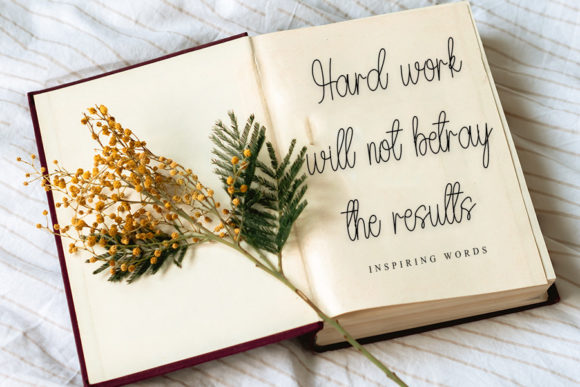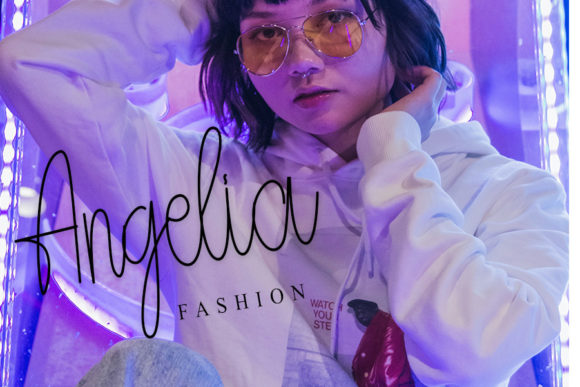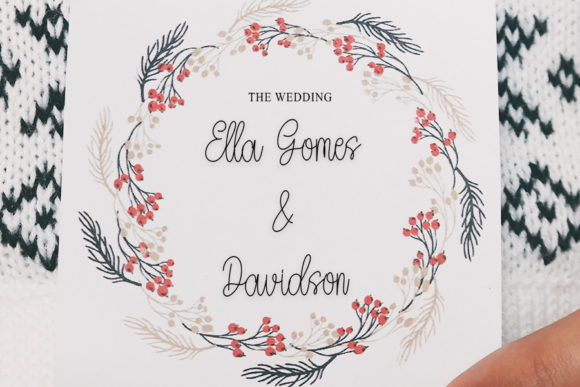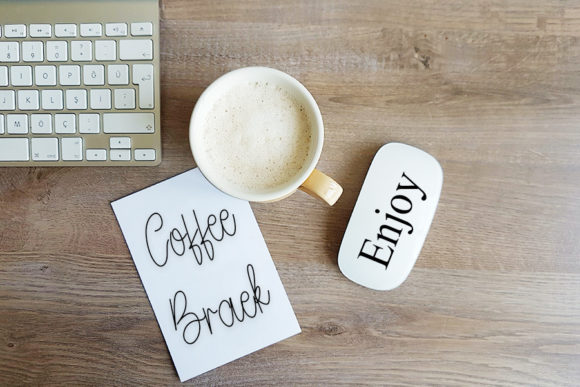
Introducing Family Signature Font: The Perfect Choice for Romantic and Personalized Designs
Are you a designer or crafter looking for a font that can add a touch of romance and personality to your designs? Look no further than Family Signature Font, a slim and delicate handwritten font that is perfect for creating beautiful and unique designs. In this article, we’ll take a closer look at Family Signature Font, its features, and how you can use it to create stunning designs for weddings, cards, and more.
What is Family Signature Font?
Family Signature Font is a slim and delicate handwritten font that is designed to bring a touch of elegance and sophistication to your designs. This font is perfect for creating romantic and personalized designs, such as wedding invitations, cards, and other paper crafts. Its dainty and joyful feel makes it ideal for adding a special touch to any design.
Key Features of Family Signature Font
- Slim and delicate design: Family Signature Font features a slim and delicate design that is perfect for creating elegant and sophisticated designs.
- Handwritten style: This font has a handwritten style that gives it a personal and unique touch.
- Romantic and joyful feel: Family Signature Font has a romantic and joyful feel that makes it perfect for creating designs for weddings, cards, and other special occasions.
- Highly versatile: This font is highly versatile and can be used for a wide range of design projects, from wedding invitations to cards, and more.
How to Use Family Signature Font
Family Signature Font is easy to use and can be incorporated into a wide range of design projects. Here are a few ideas for using this font:
- Wedding Invitations: Use Family Signature Font to create beautiful and elegant wedding invitations that will set the tone for the big day.
- Cards: Add a personal touch to your cards with Family Signature Font, perfect for birthdays, anniversaries, and other special occasions.
- Paper Crafts: Use Family Signature Font to create unique and personalized paper crafts, such as scrapbook pages, journal entries, and more.
- Stationery: Create custom stationery with Family Signature Font, perfect for personal use or as a gift.
Why Choose Family Signature Font?
There are many fonts available that can add a touch of elegance and sophistication to your designs. So why choose Family Signature Font? Here are a few reasons:
- Unique and Personalized: Family Signature Font has a unique and personalized feel that will make your designs stand out.
- Elegant and Sophisticated: This font features an elegant and sophisticated design that is perfect for creating high-end designs.
- Highly Versatile: Family Signature Font is highly versatile and can be used for a wide range of design projects.
- Easy to Use: This font is easy to use and can be incorporated into your designs with ease.
Tips for Using Family Signature Font
Here are a few tips for using Family Signature Font:
- Pair with Other Fonts: Pair Family Signature Font with other fonts to create a unique and interesting design.
- Use for Headings and Titles: Use Family Signature Font for headings and titles to add a touch of elegance and sophistication.
- Add Decorative Elements: Add decorative elements, such as flowers or borders, to enhance your design.
Family Signature Font is a beautiful and elegant handwritten font that is perfect for creating romantic and personalized designs. Its slim and delicate design, combined with its joyful and romantic feel, makes it ideal for a wide range of design projects. Whether you’re a designer or crafter, Family Signature Font is a great choice for adding a touch of elegance and sophistication to your designs.